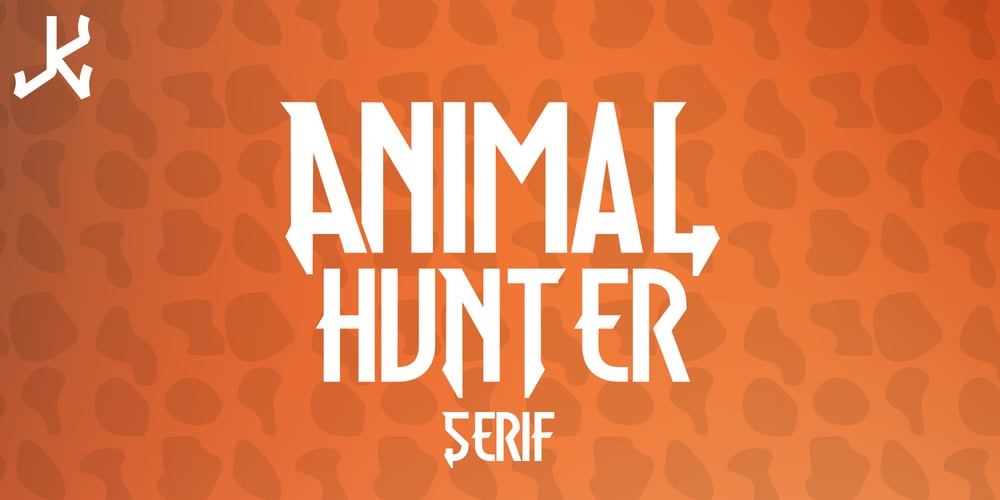
Animal Hunter Font Family was designed by Hilton Santos and published by JK Typeface. Animal Hunter contains 2 styles and family package options. This unique font is characterized by the presence of only one sharp serif, skillfully positioned to give it an aggressive and distinctive appearance. This typographic singularity seamlessly blends the minimalism of sans-serif fonts with the visual intensity of a serif, resulting in a design that will undoubtedly catch the eye and make your message stand out.